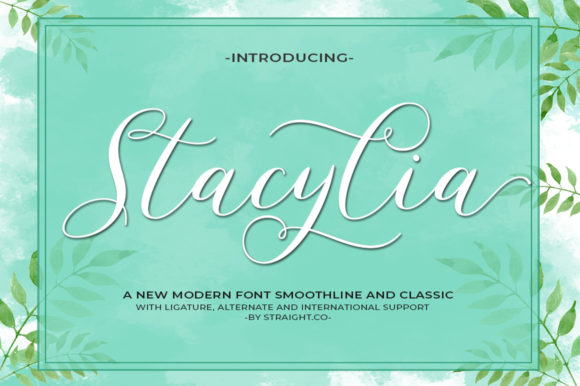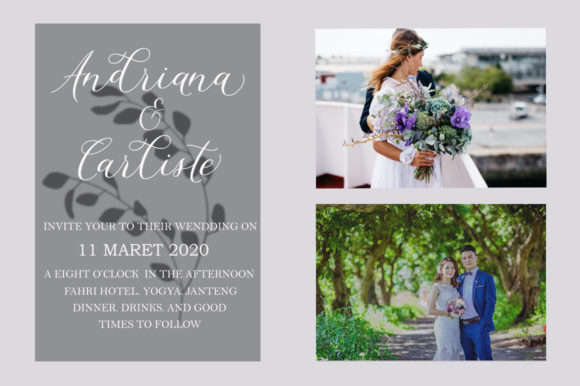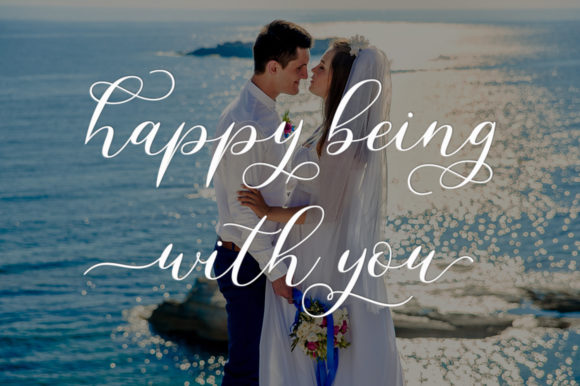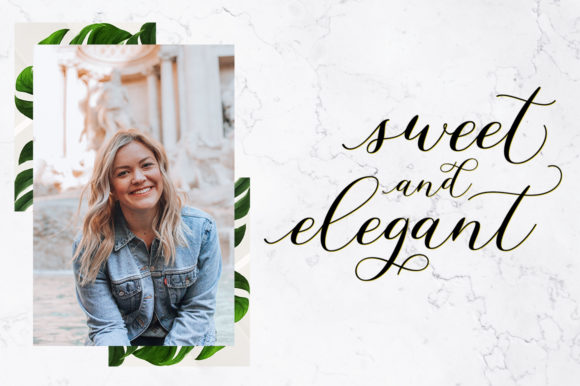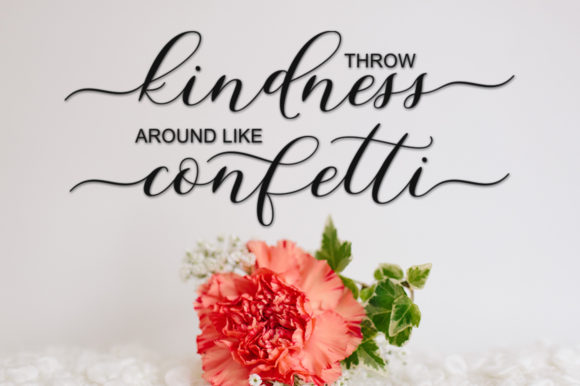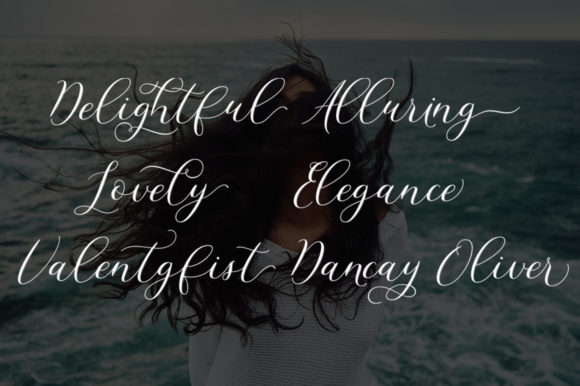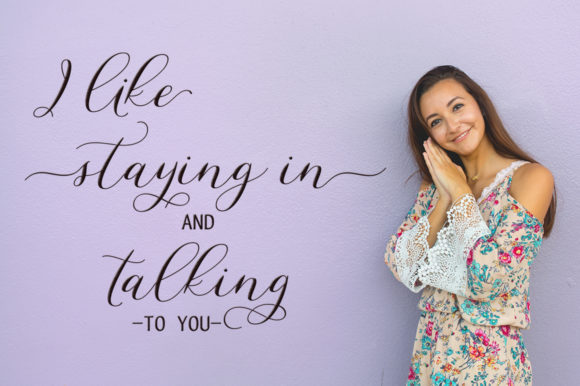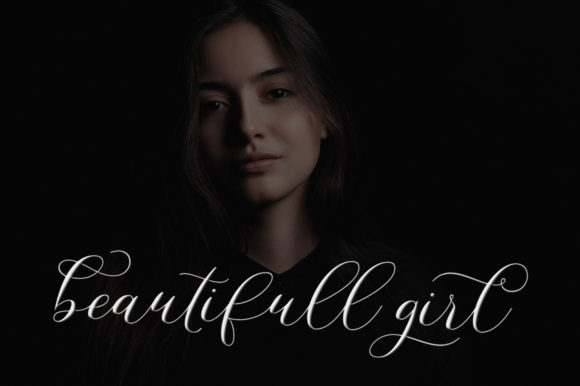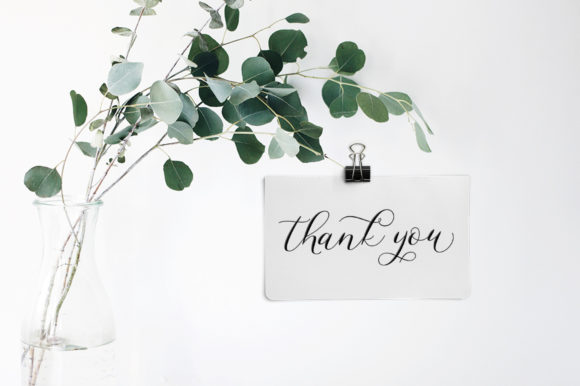
HomeScript FontsStacylia Font Script Fonts Stacylia Font FacebookXPinterestWhatsApp Stacylia Font Poster 2 Stacylia Font Poster 3 Stacylia Font Poster 4 Stacylia Font Poster 5 Stacylia Font Poster 6 Stacylia Font Poster 7 Stacylia Font Poster 8 Stacylia Font Poster 9 About Stacylia Font Stacylia is a stunning script full of charm. Get inspired by its gorgeous swashes. DOWNLOAD ON CREATIVE FABRICAThis font is sold and delivered by Creative Fabrica. Font Canyon may earn a commission if you buy through this link. People also explored Designer Font Aleida Font Wedding History Font Black Klisse Font Marista Font Catherine Makayla Font Cherod Font Bafuqi Font Tokushima Arigatou Font 298 0 TagsStacylia Font Previous articleBrachetto FontNext articleAdele Font LEAVE A REPLY Cancel reply Comment: Please enter your comment! Name:* Please enter your name here Email:* You have entered an incorrect email address! Please enter your email address here Website: Save my name, email, and website in this browser for the next time I comment. Personal Use Free The Quick Personal Use Free Read more about this font Black Personal Use Free Read more about this font Love Heart Personal Use Free Read more about this font Rafika Personal Use Free Read more about this font BLOG Free Fonts Risk: Why Free Fonts Can Be Dangerous for Designers Free Fonts Risk: Why Free Fonts Can Be Dangerous for Designers Using free fonts is a common practice in web and graphic design. However, the... How to Cut Any Font on Cricut: Convert a Font to SVG (Free) To increase your work productivity, choose the most readable fonts. The 10 Best Handwriting Fonts to Add Personality to Your Designs